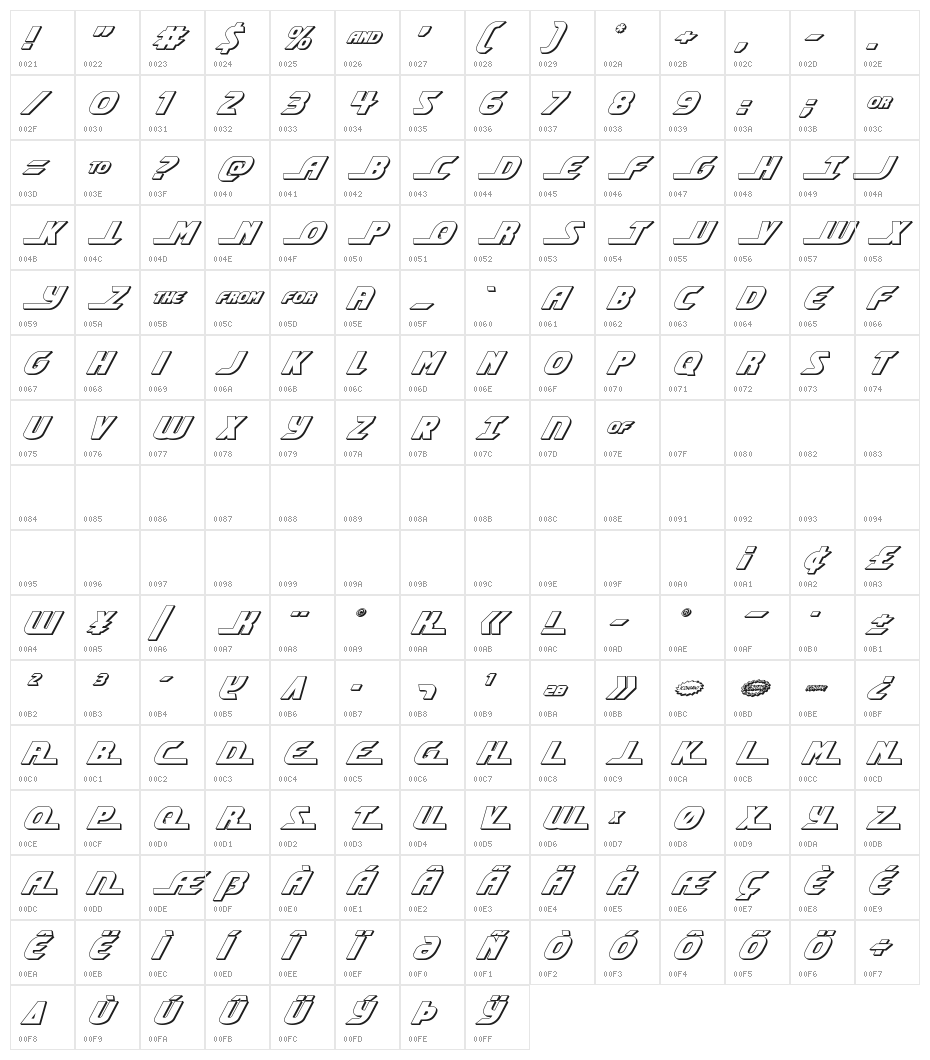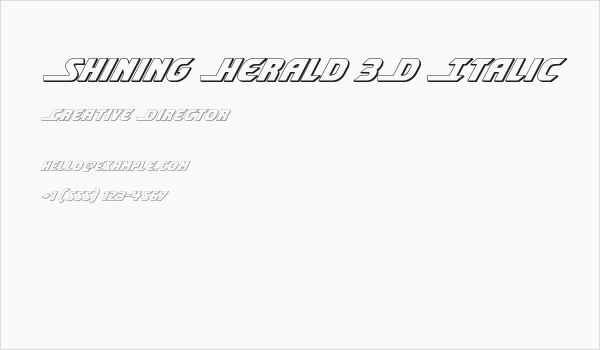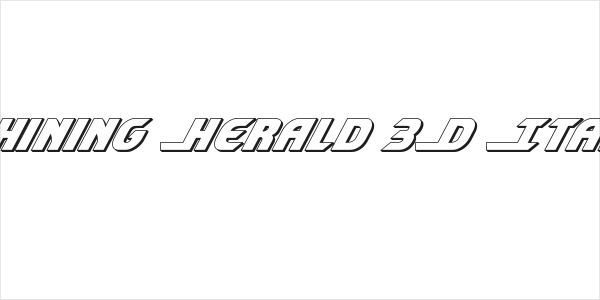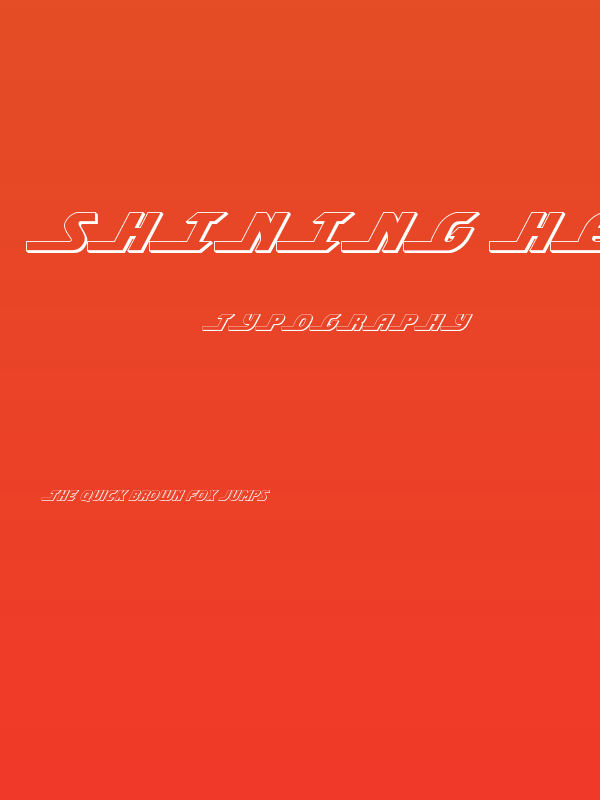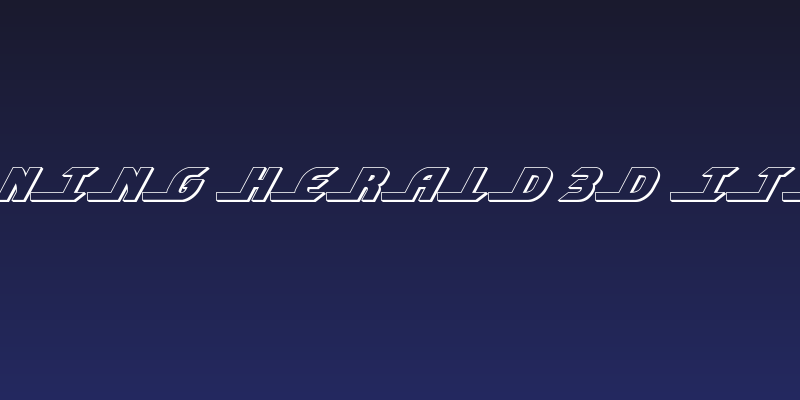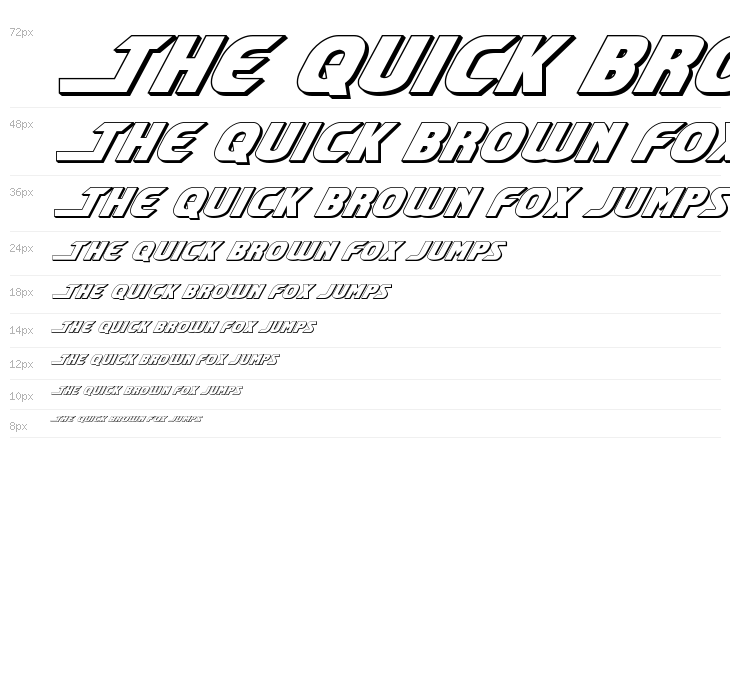
Shining Herald 3D Italic Font
Shining Herald 3D Italic Description
This font features a bold, three-dimensional design with a distinct italic slant. The characters are outlined, giving them a shadowed effect that enhances their 3D appearance. The uppercase letters are robust and dynamic, with a consistent stroke width that adds to their boldness. The numbers and special characters follow the same design principles, ensuring uniformity across all glyphs. The font's style is eye-catching and modern, making it suitable for projects that require a strong visual impact.
| Proposed Projects | Ideal for headlines, posters, logos, and any design needing a striking, modern typeface. |